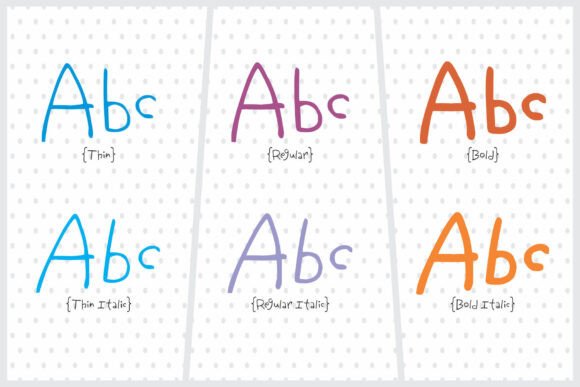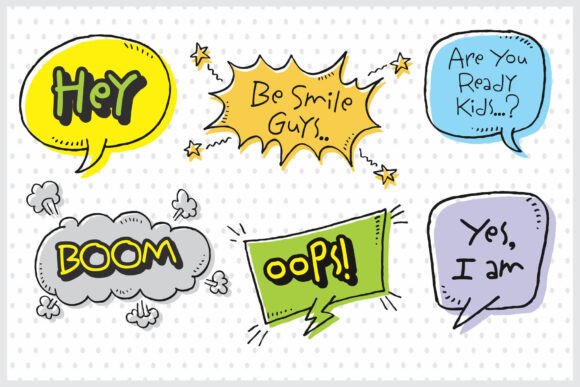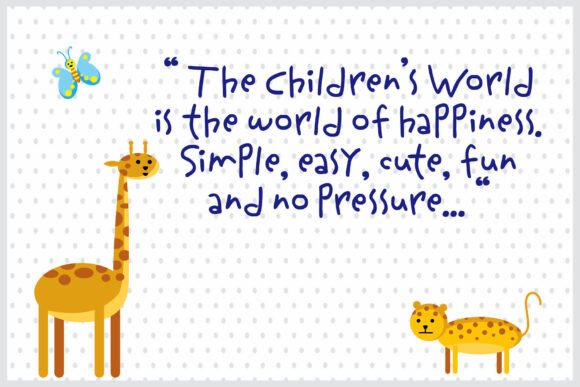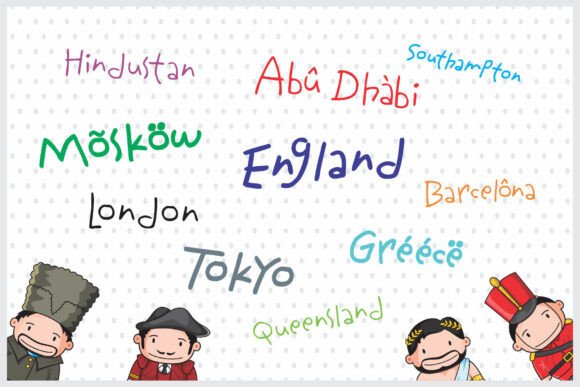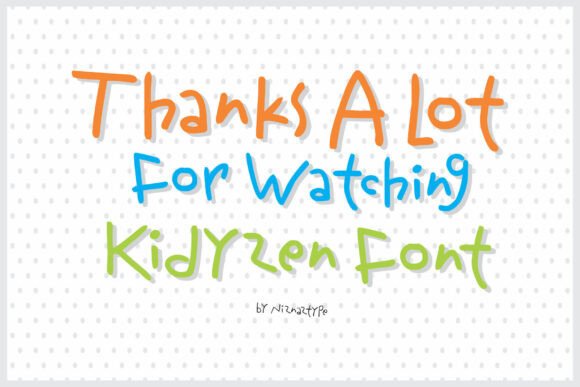
Introduction to Kidyzen Font
Kidyzen is a sans handwritten typeface.
Inspired from the character of kids writing in their book Kidyzen have unique style because it like same with typing of children.
Key Features of Kidyzen Font